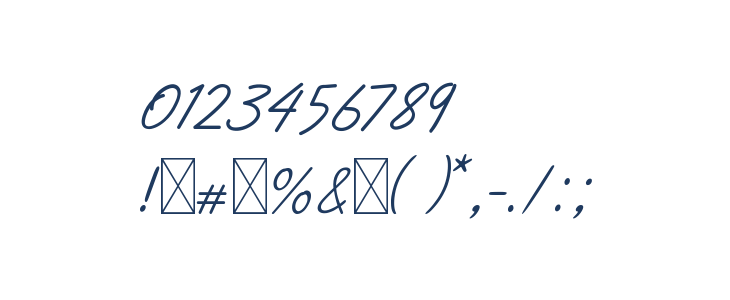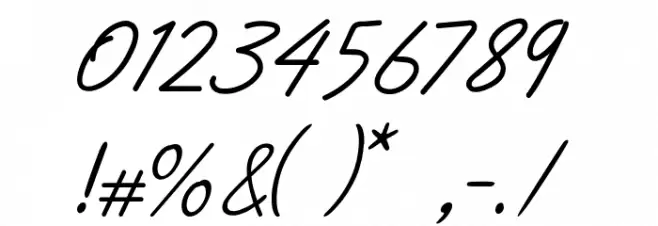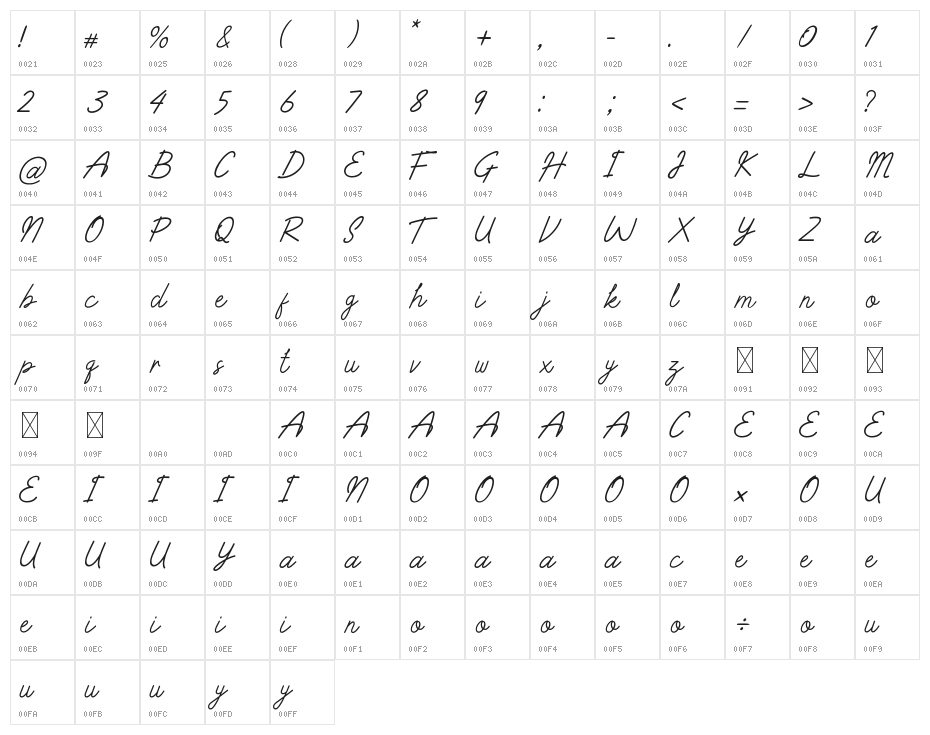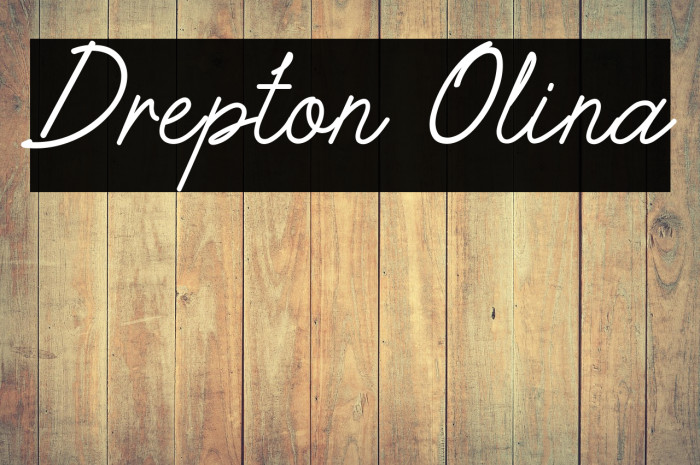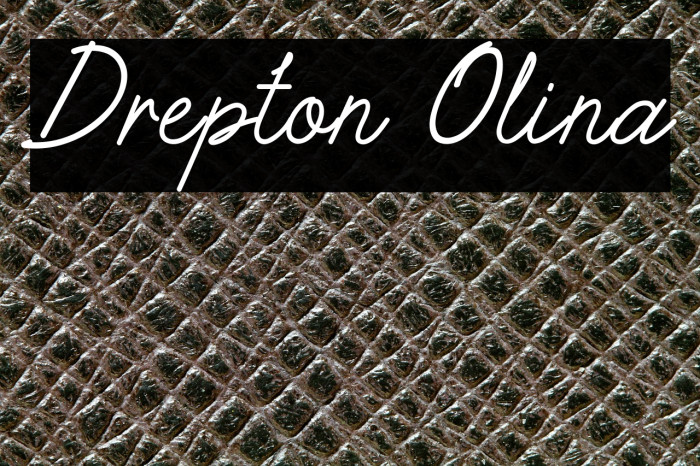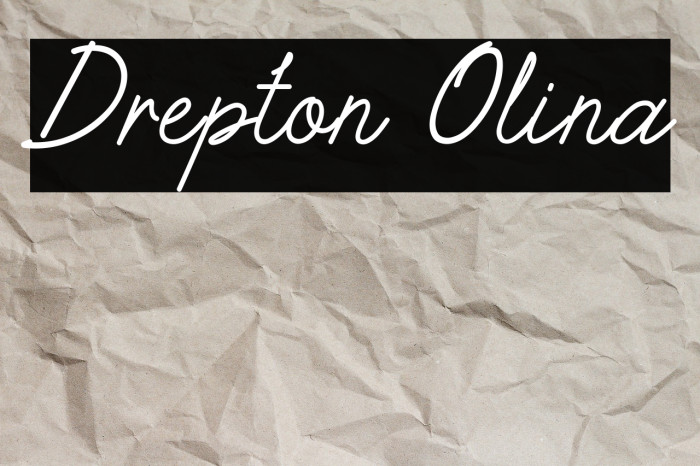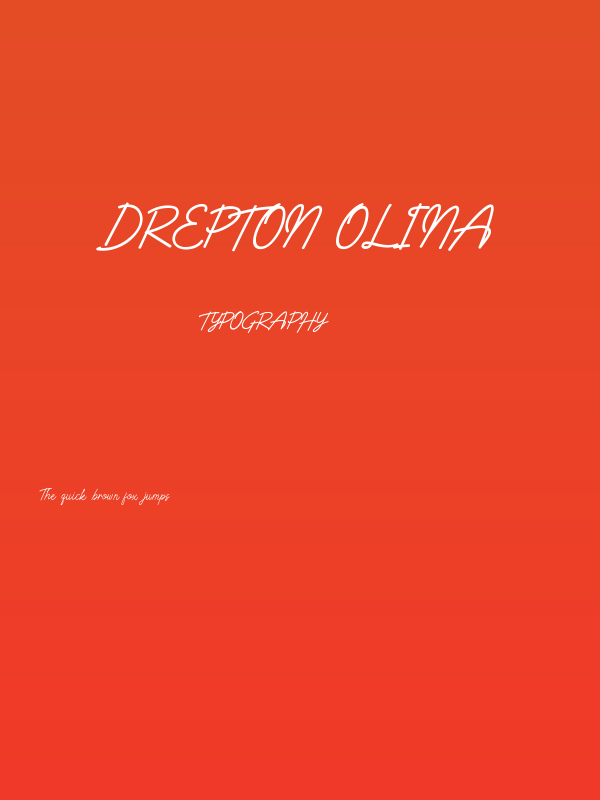
Drepton Olina Font
Drepton Olina Description
This font features a flowing, cursive style that mimics elegant handwriting. The characters are interconnected, creating a seamless and fluid appearance. The uppercase letters are slightly larger and more pronounced, while the lowercase letters maintain a consistent flow. The numbers and special characters are designed to match the overall cursive style, ensuring a cohesive look across all elements. The strokes are smooth and consistent, with a medium contrast that adds to the readability without compromising the decorative nature of the font. This style is ideal for projects that require a personal touch or a sense of sophistication.